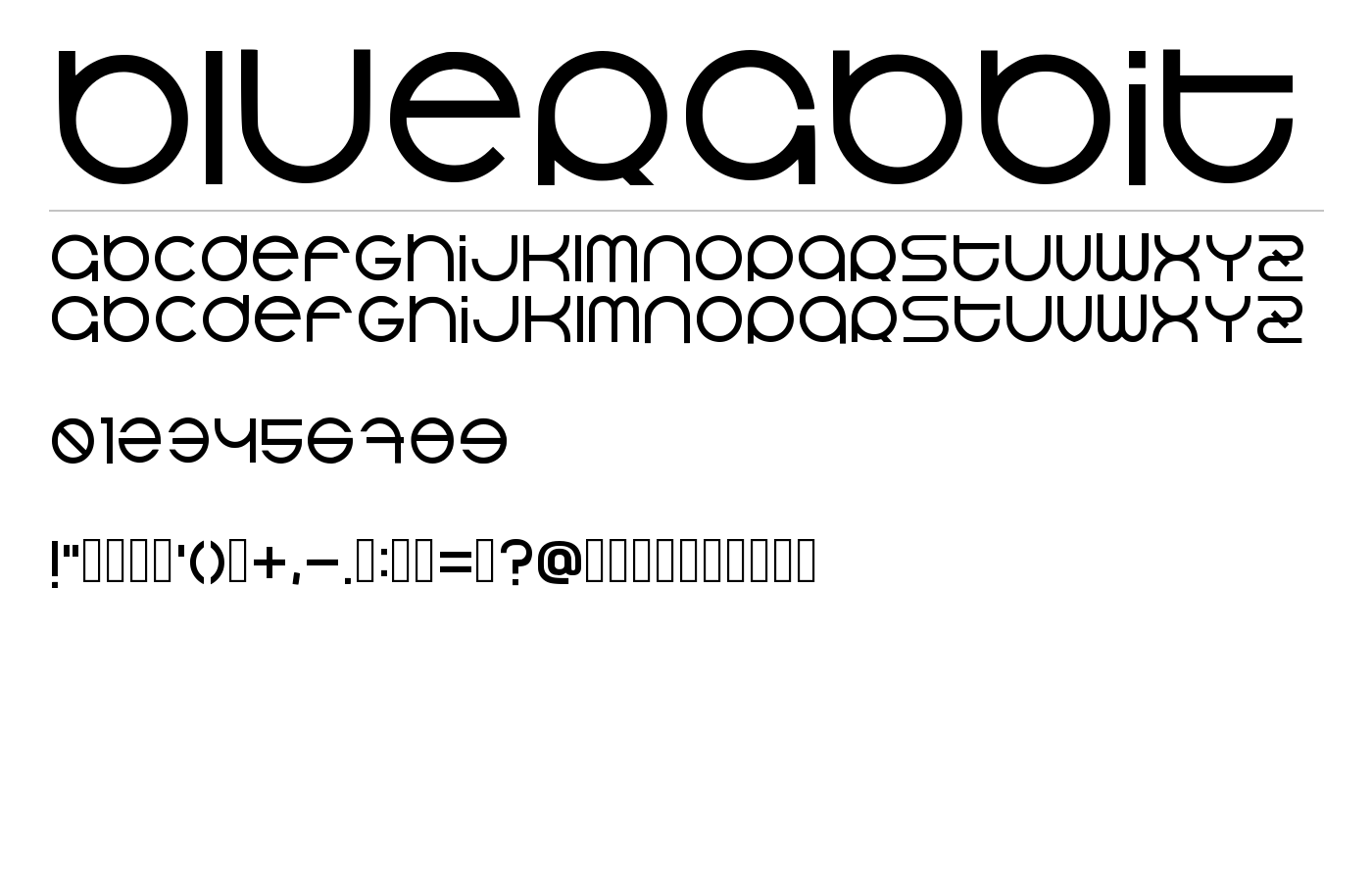
Bluerabbit is a modern sans serif font with a clean, geometric design and a playful, futuristic character. Its bold weight, consistent stroke width, and unique letterforms, such as the single-story "a" and "g," make it ideal for eye-catching logos, headlines, and creative branding projects where a contemporary yet approachable tone is desired. This font works particularly well for tech, fashion, and forward-thinking brands seeking a distinctive and stylish visual identity.
Bluerabbit Font